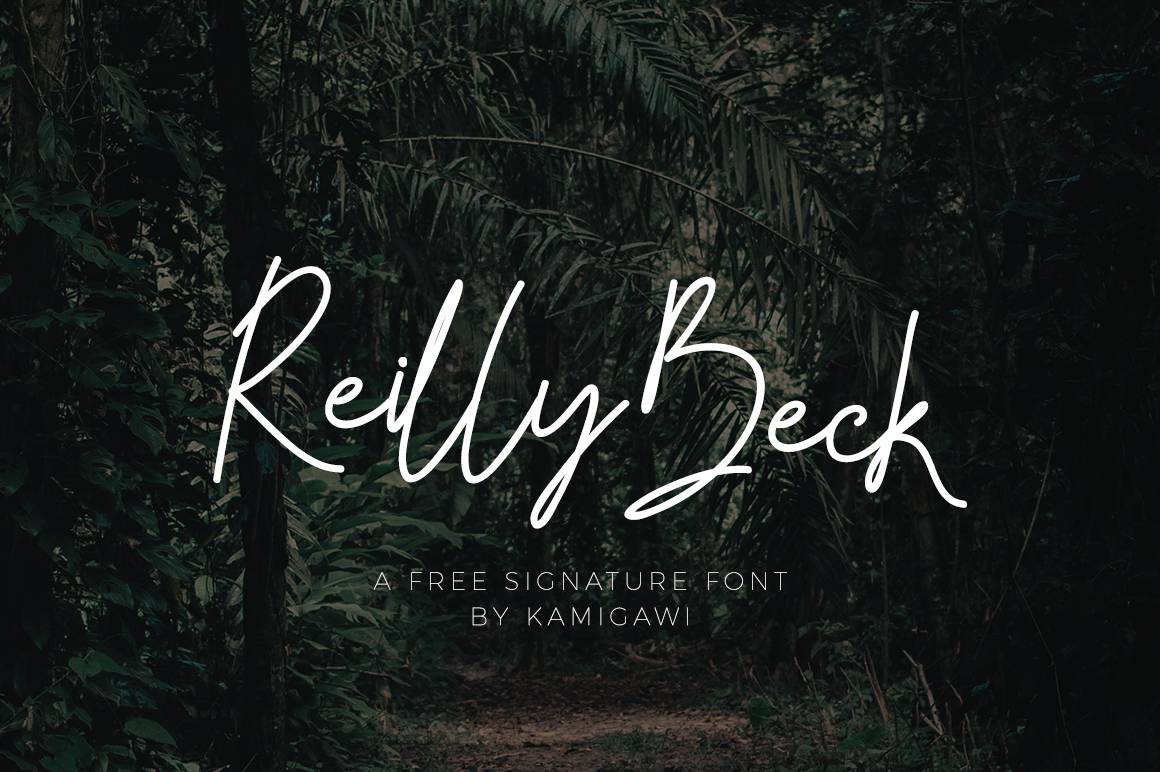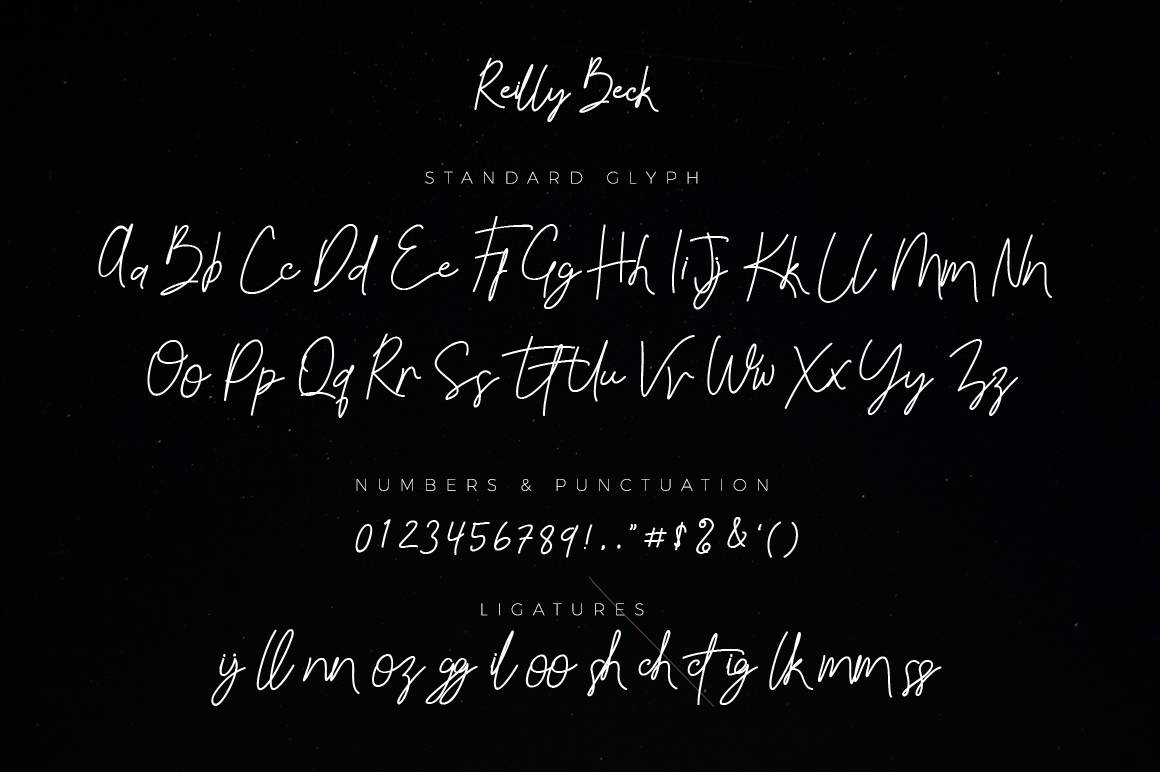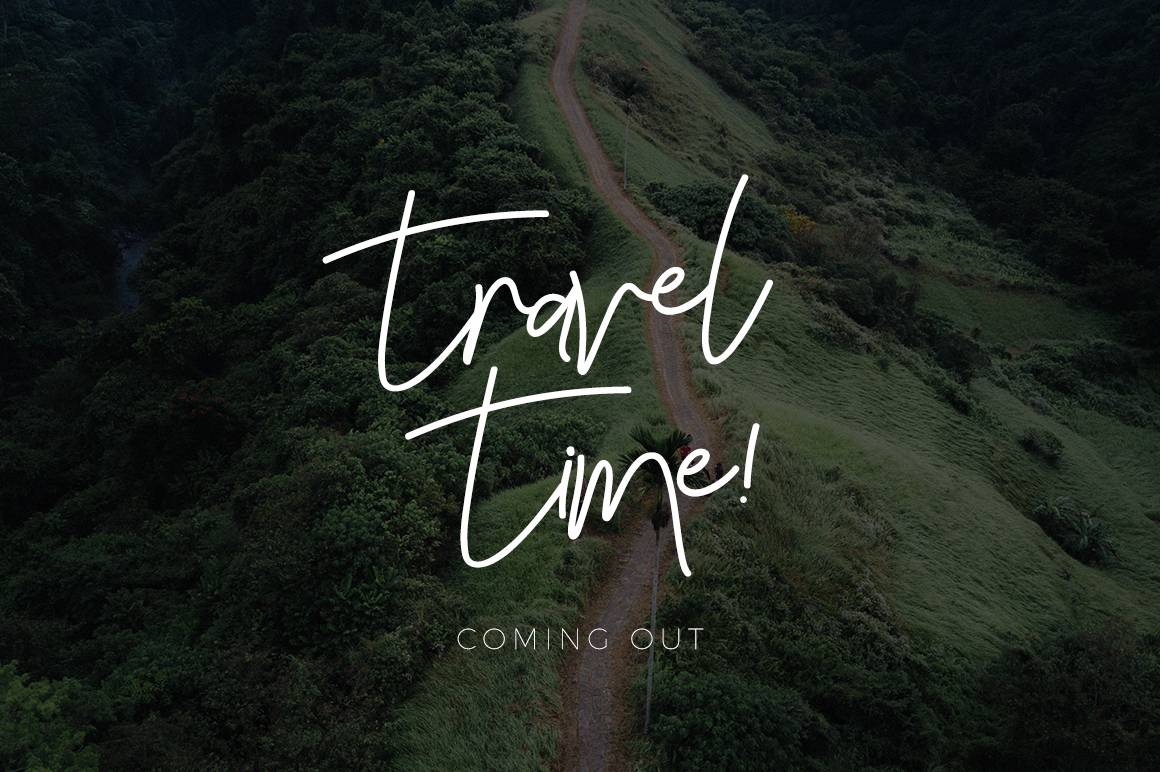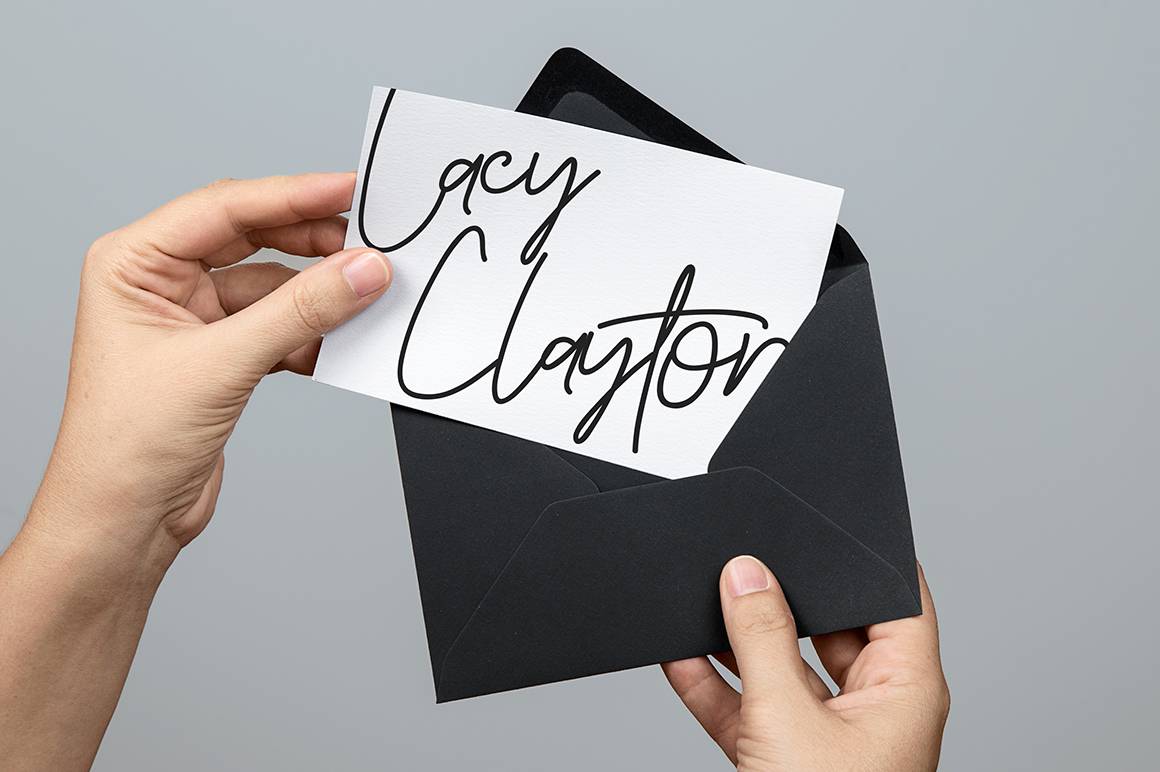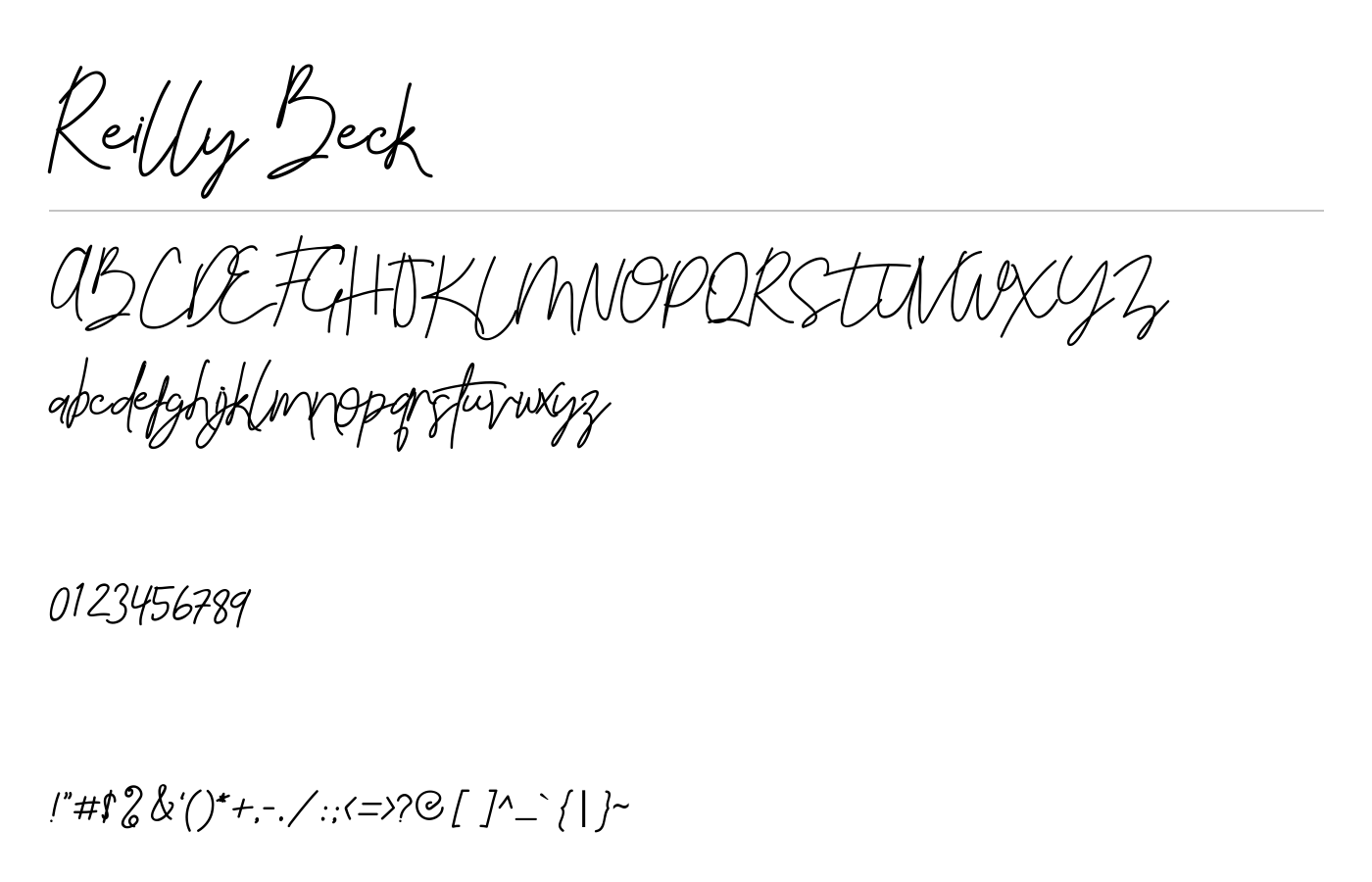
Reilly Beck is a delicate, handwritten script font characterized by its slender, flowing strokes and casual elegance. Its airy, irregular letterforms convey a personal and approachable feel, making it ideal for creative projects, invitations, branding, and informal communications that seek a charming and natural touch. This font works especially well where a light, expressive handwriting style is needed to add warmth and personality.
Reilly Beck Font
About Reilly Beck Font